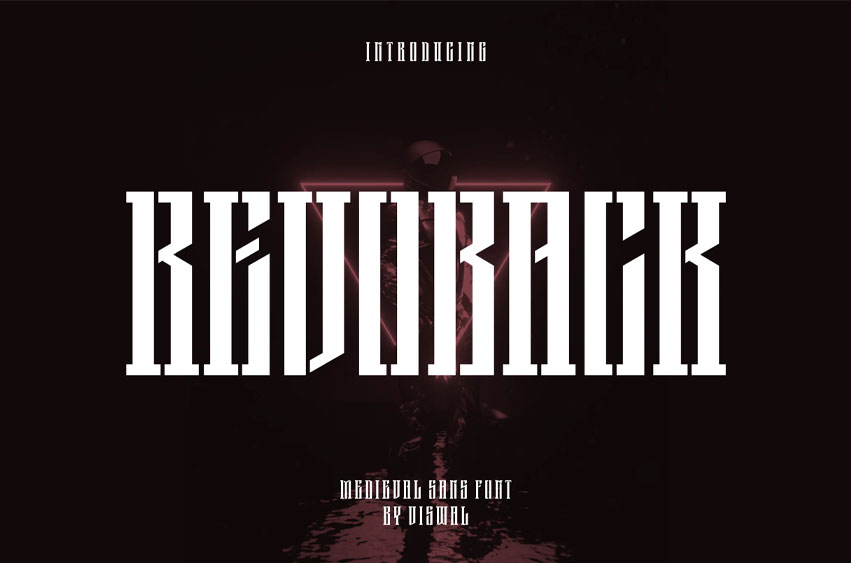
Revoback Font
Revoback Font Is A Medieval & Tall Font. Can Make It Easier To Convey The Message In Your Design. Font Is Suitable For Logos, Labels, Badges, Branding, Magazines, Posters, Titles, Gigs, Covers, etc. Our Fonts Have Uppercase & Lowercase, numerals & Punctuation, and Opentype Features. For Amazing Designs, You Can Mix With Other Fonts As A Complement.